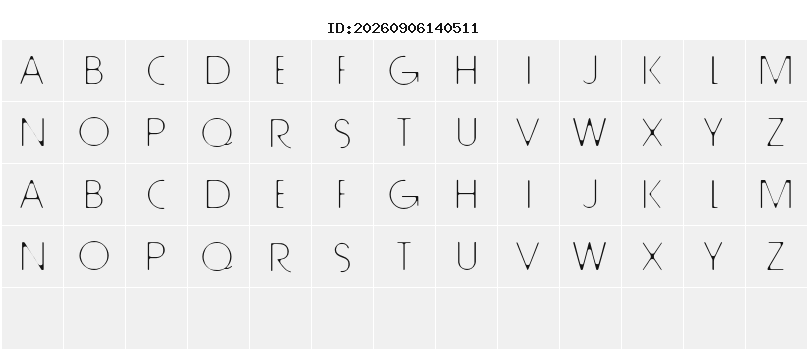
• Font Name: Tall Trees
• Designer: =^_^=
• Manufacturer: Skyhaven
About Tall Trees.otf
Tall Trees.otf is a modern, elegant sans-serif font designed for ultimate readability and visual harmony. Perfect for branding, headlines, web design, and print materials.